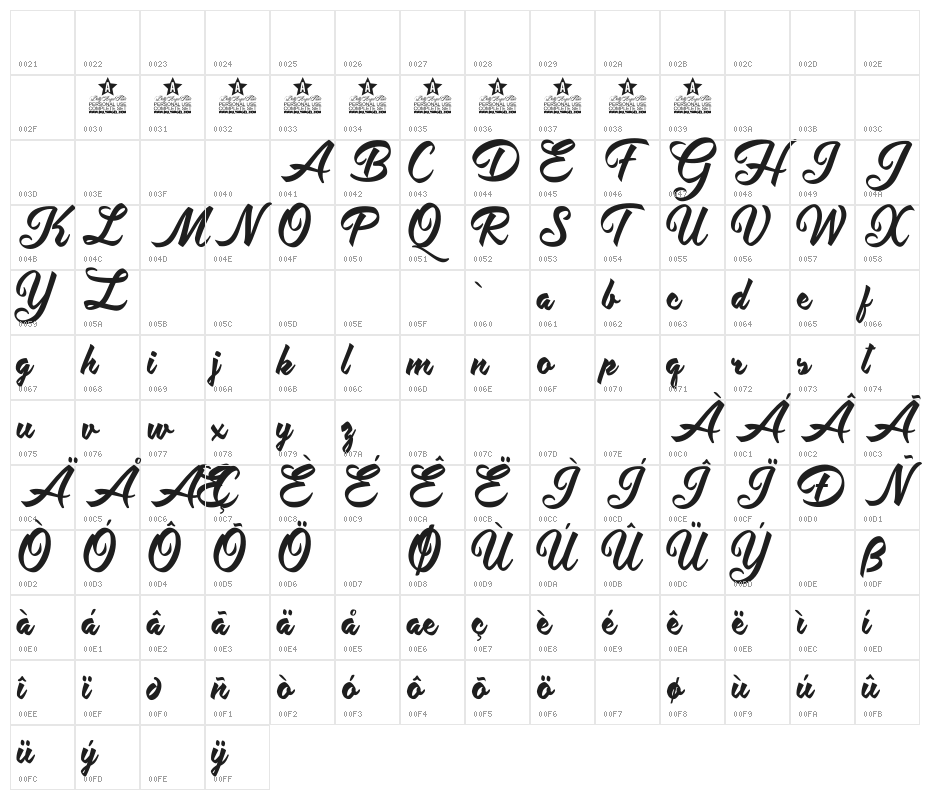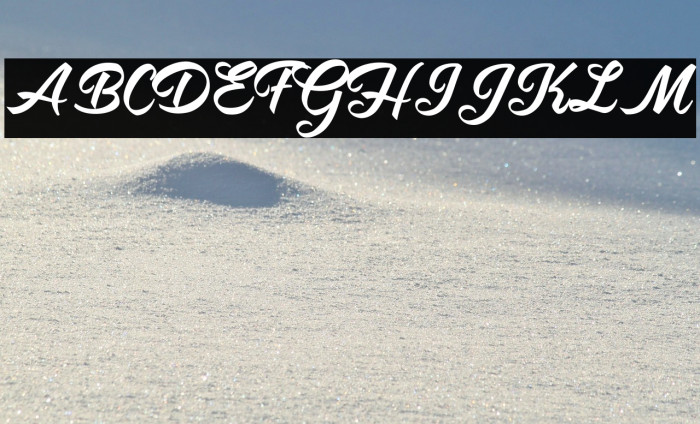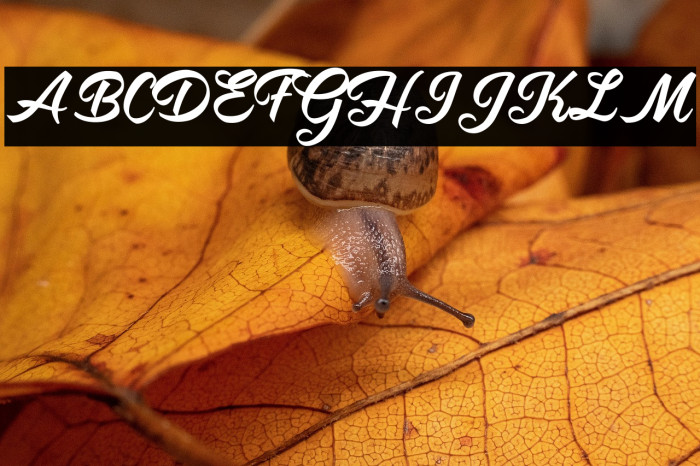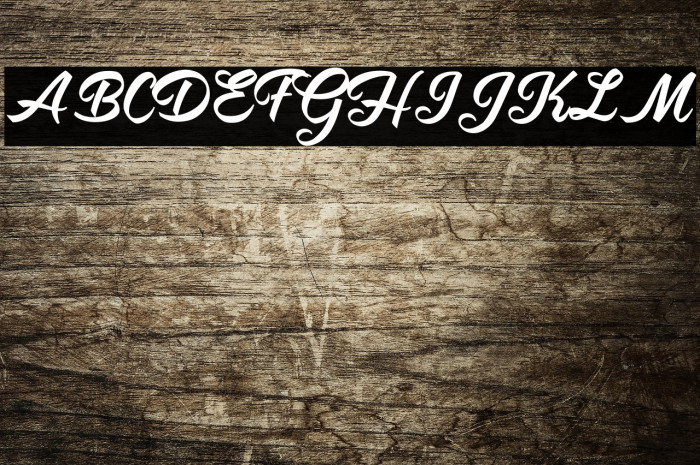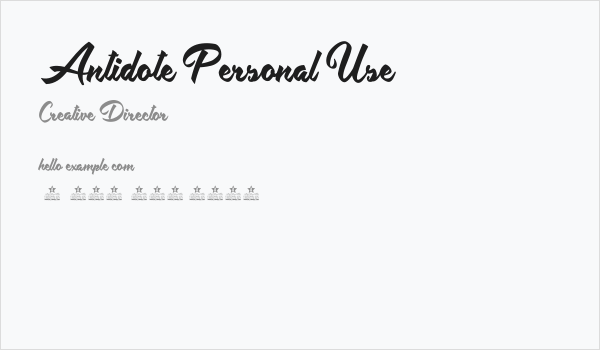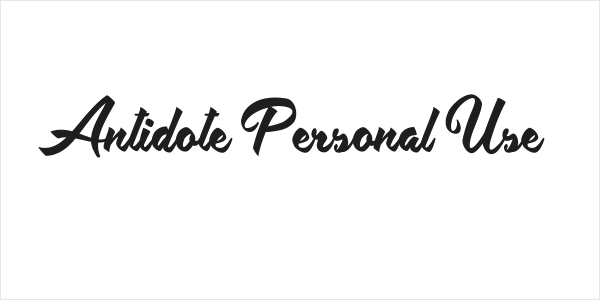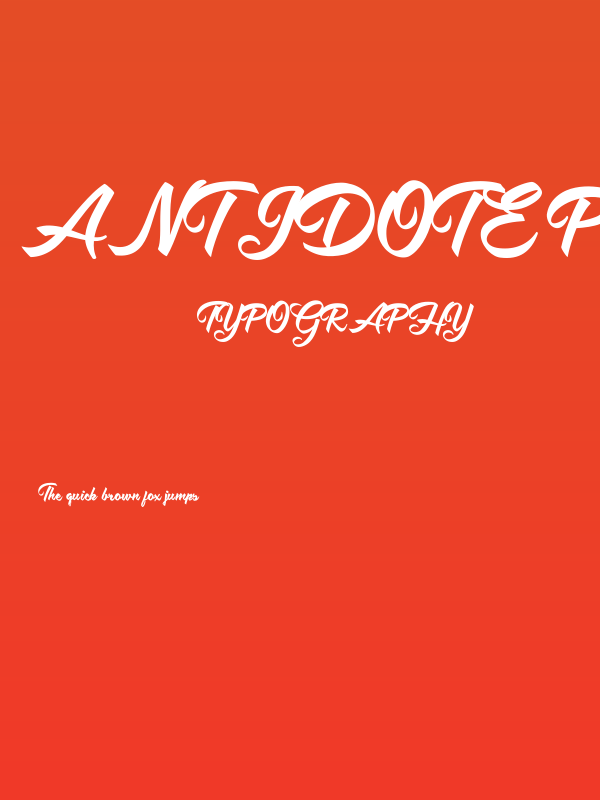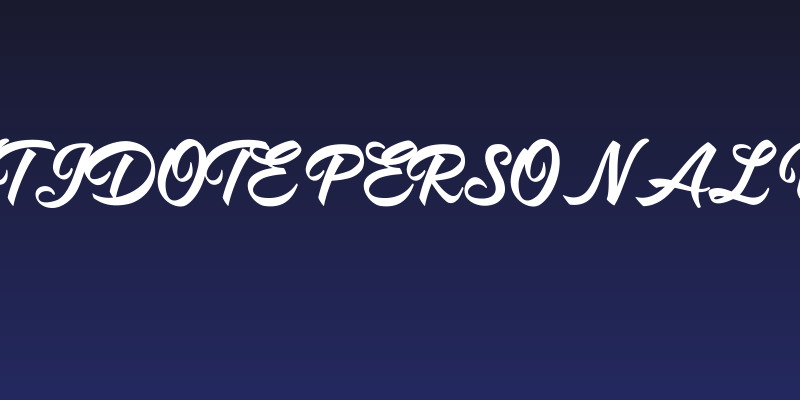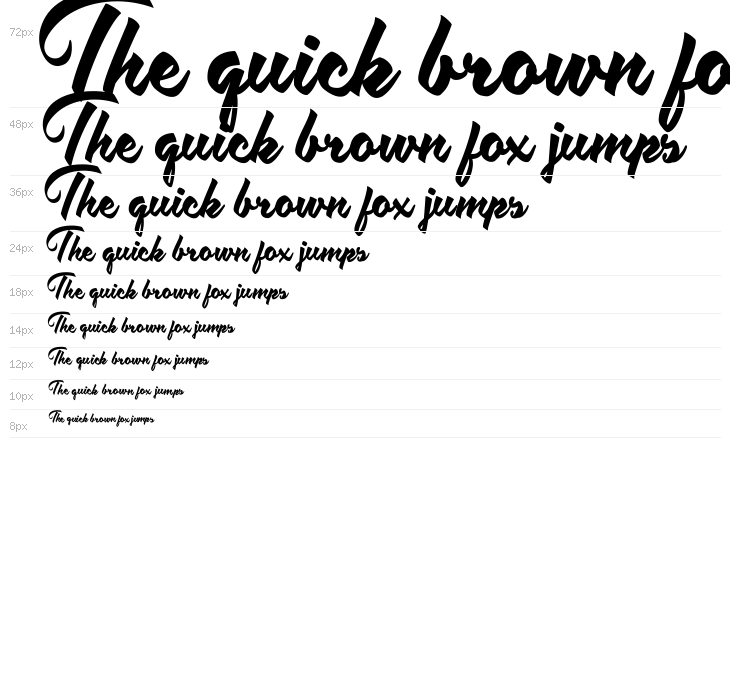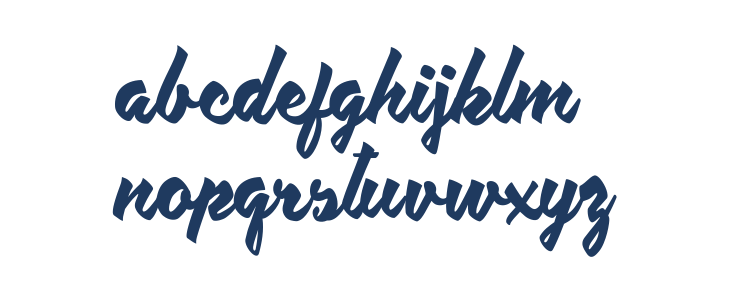
Antidote Personal Use Font
Antidote Personal Use Description
This font features a dynamic and flowing script style, characterized by its elegant and cursive letterforms. The uppercase letters exhibit a graceful, looping design, while the lowercase letters maintain a consistent, fluid motion. The font's bold weight adds a sense of strength and presence, making it suitable for impactful designs. The character spacing is tight, enhancing the cohesive and connected appearance of the text. The high contrast in stroke thickness further emphasizes the artistic and decorative nature of the font, making it ideal for creative and expressive projects.